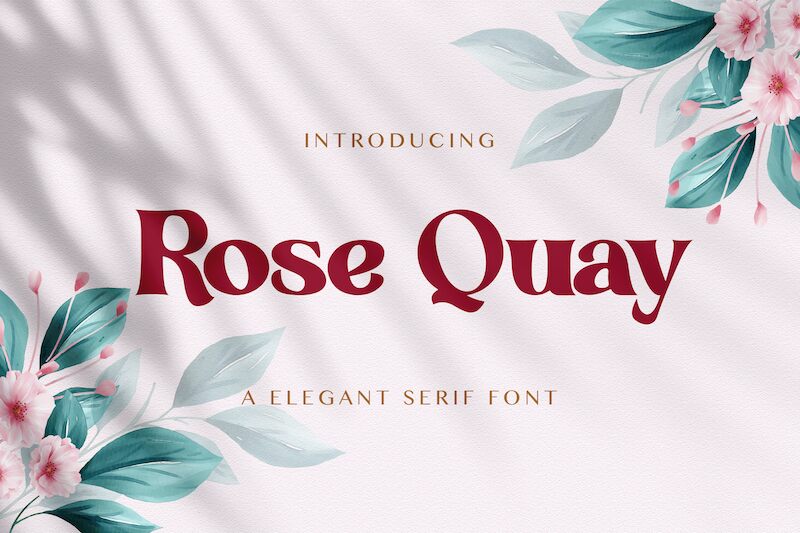
Rose Quay
Virgiawan Listanto's Rose Quay is an elegant retro serif font with a bold weight. It is perfect for creating eye-catching logos and posters, as well as modern wedding invitations and greeting cards.